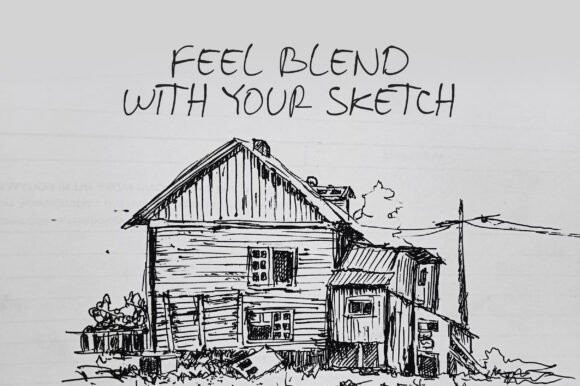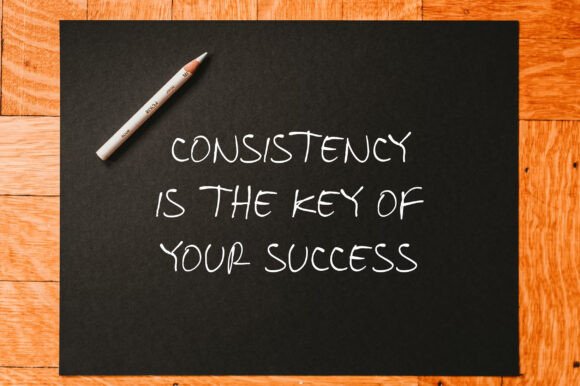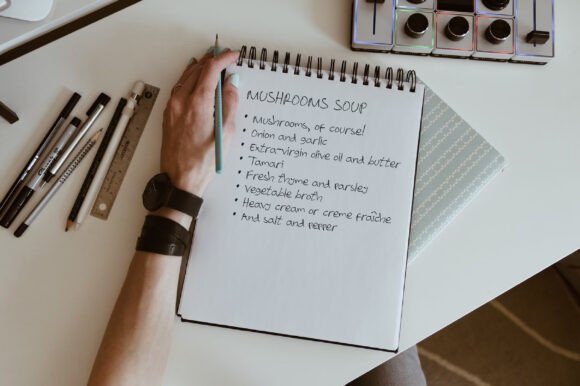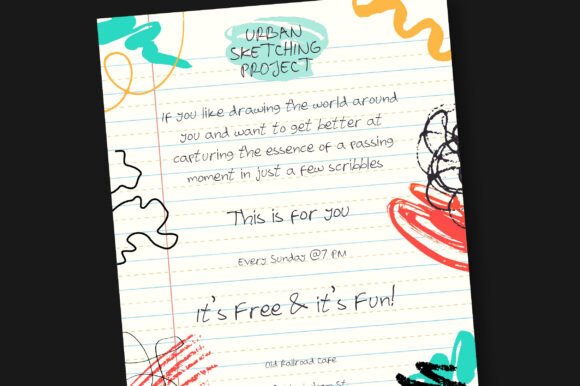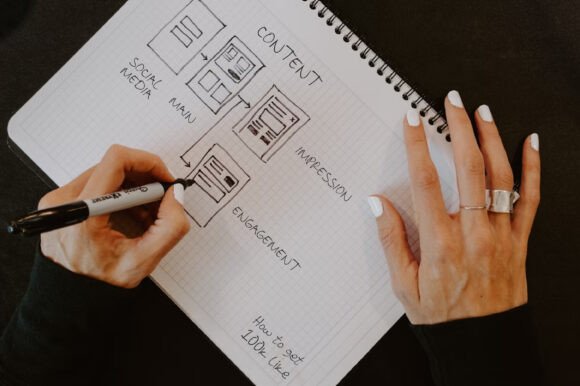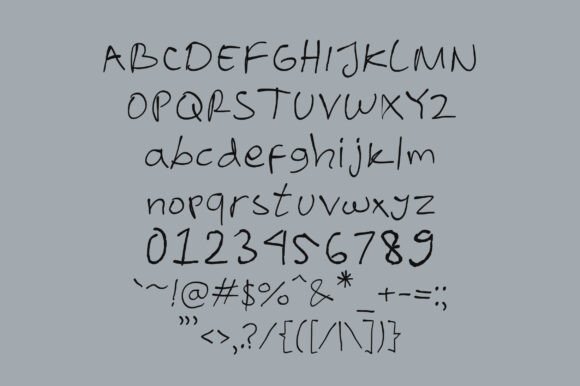
Brownies Handdrawn Font: Elevate Your Designs with a Personal Touch
In the realm of typography, few fonts manage to capture the essence of human touch as effectively as Brownies Handdrawn. This script handwriting font is a game-changer for designers and crafters looking to infuse their projects with a natural, bold, and quote-worthy style. With its unique blend of delicate swashes and robust strokes, Brownies Handdrawn offers an unparalleled level of expressiveness, making it perfect for a wide range of applications, from branding and invitations to expressive typography.
The Charm of Handdrawn Typography
Brownies Handdrawn is more than just a font – it’s an experience. Its handdrawn nature gives it a distinct, organic feel that resonates with audiences on a personal level. Each letter, each swash, and each stroke has been meticulously crafted to emulate authentic handwriting, bringing a sense of warmth and personality to your designs. This font is ideal for projects where you want to convey a sense of intimacy, creativity, or individuality.
Key Features of Brownies Handdrawn Font
- Natural and Bold Styles: Brownies Handdrawn offers a spectrum of styles, ranging from delicate and elegant to bold and assertive. This versatility makes it suitable for a wide range of projects, from subtle branding elements to eye-catching headlines.
- Authentic Handwriting Feel: The font’s handdrawn nature gives it a unique, human touch that sets it apart from more traditional typefaces. Each letterform is infused with the subtle imperfections and nuances of handwriting, adding character and personality to your designs.
- Swashes and Strokes: Brownies Handdrawn features beautiful swashes and strokes that can be used to add flair and elegance to your typography. These decorative elements are perfect for creating eye-catching titles, headings, and quotes.
Brownies Handdrawn is a dream come true for designers and crafters looking to add a personal touch to their projects. Whether you’re working on a branding campaign, designing invitations, or creating expressive typography, this font offers the perfect blend of style and flexibility. Its handdrawn nature makes it ideal for:
- Branding: Use Brownies Handdrawn to create unique and memorable brand identities that stand out from the crowd.
- Invitations: Add a touch of elegance and sophistication to your invitations with the font’s beautiful swashes and strokes.
- Expressive Typography: Brownies Handdrawn is perfect for creating eye-catching headlines, quotes, and titles that demand attention.
Tips for Using Brownies Handdrawn Font
To get the most out of Brownies Handdrawn, here are a few tips to keep in mind:
- Experiment with Different Styles: Don’t be afraid to try out different styles and combinations of swashes and strokes to find the perfect look for your project.
- Mix and Match with Other Fonts: Brownies Handdrawn pairs well with a wide range of fonts. Experiment with different combinations to create unique and interesting typography.
- Pay Attention to Kerning and Spacing: As with any font, make sure to pay attention to kerning and spacing to ensure that your text looks clean and professional.
Brownies Handdrawn Font is a powerful tool for designers and crafters looking to add a personal touch to their projects. With its unique blend of natural, bold, and quote-worthy styles, this script handwriting font is perfect for a wide range of applications. Whether you’re working on branding, invitations, or expressive typography, Brownies Handdrawn offers the perfect combination of style, flexibility, and expressiveness. So why settle for ordinary typography when you can elevate your designs with the charm and personality of Brownies Handdrawn?